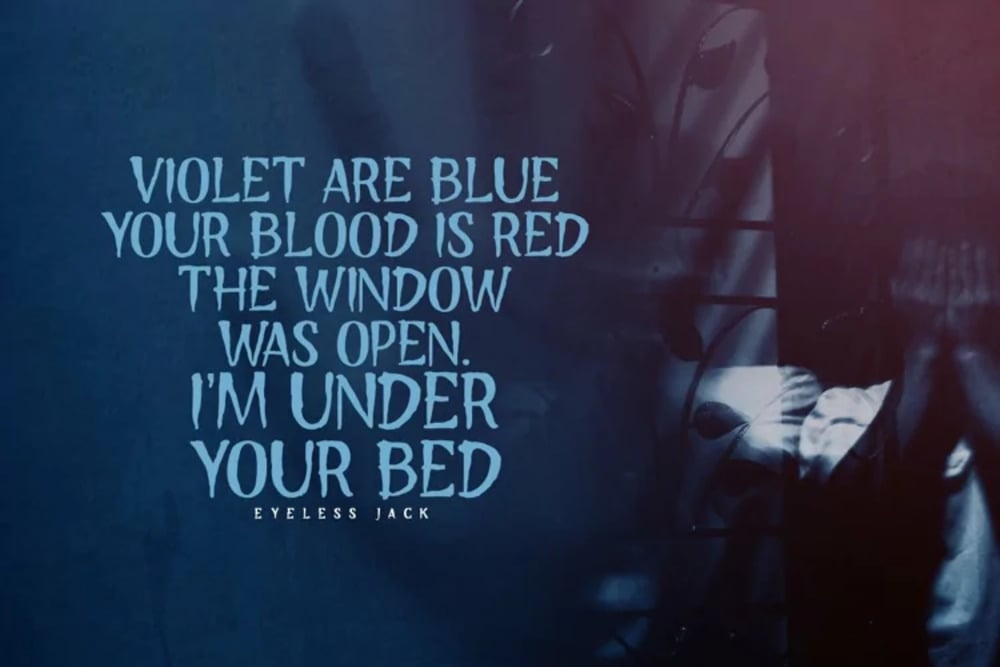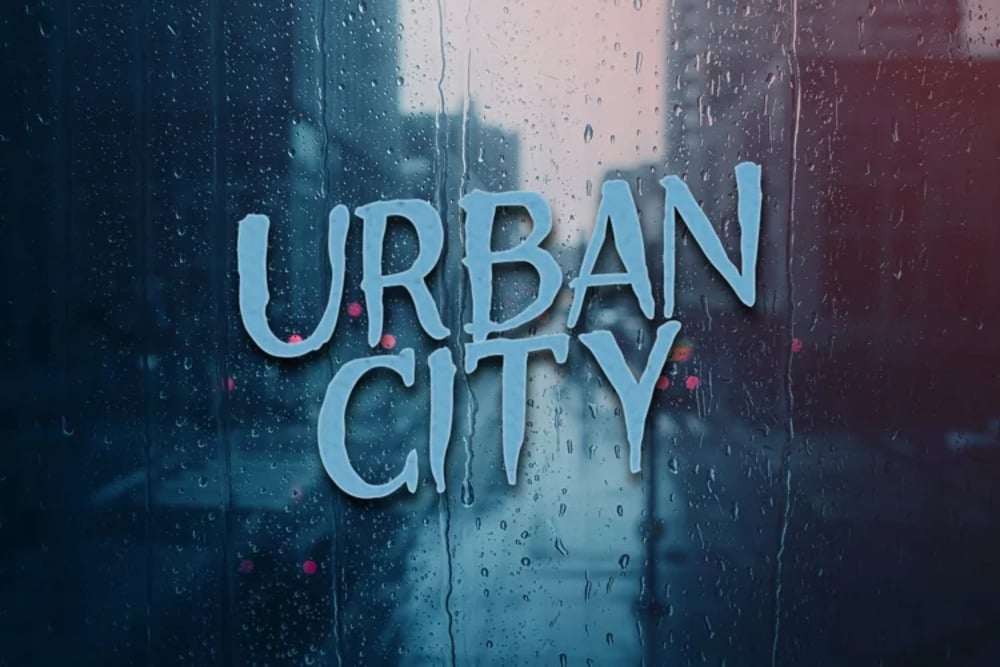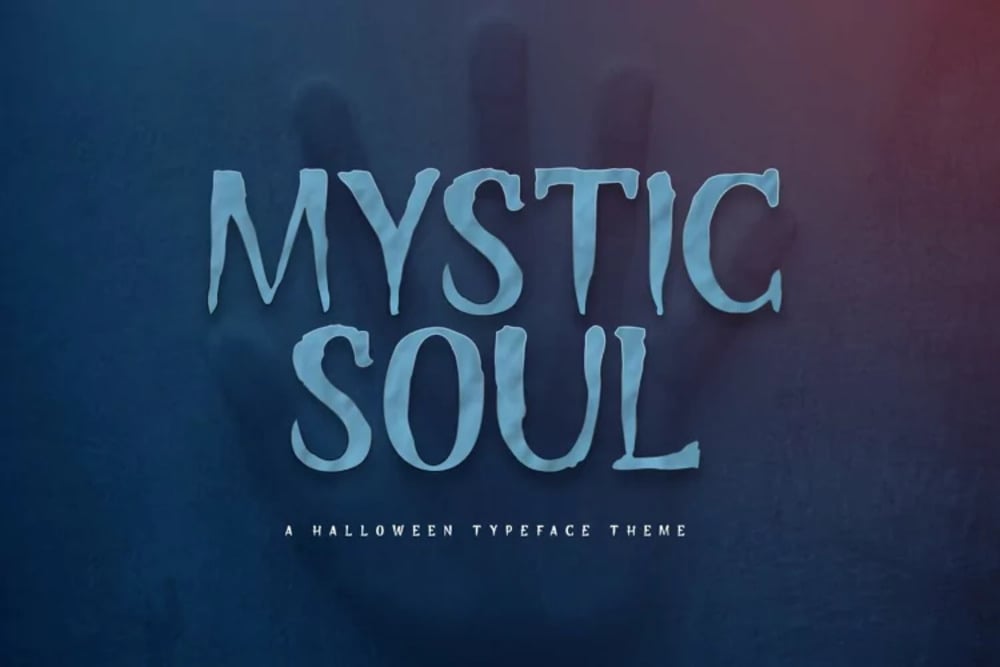
Mystic Soul Font
Mystic Soul is an ethereal and enchanting script font with a flowing, elegant feel. Its delicate strokes and swirling letterforms evoke a sense of magic and wonder, perfect for mystical themes, fantasy novels, or spiritual branding. Mystic Soul adds a touch of otherworldly beauty to any project, while remaining legible and versatile. Its unique style creates a sense of mystery and intrigue, ideal for designs that aim to captivate and inspire.